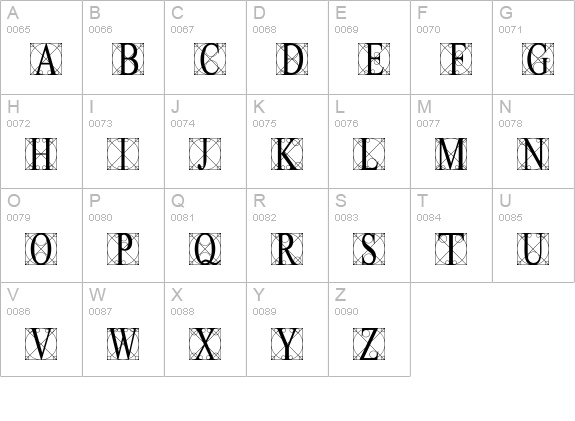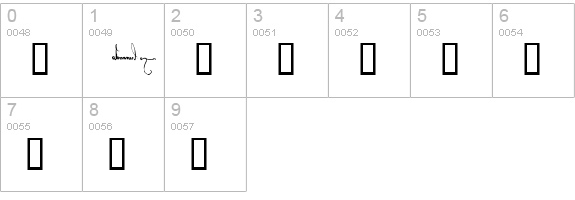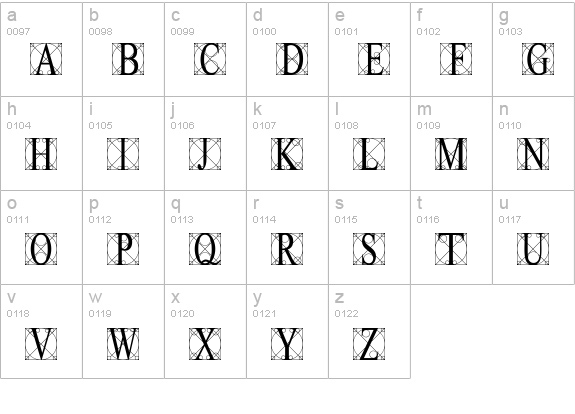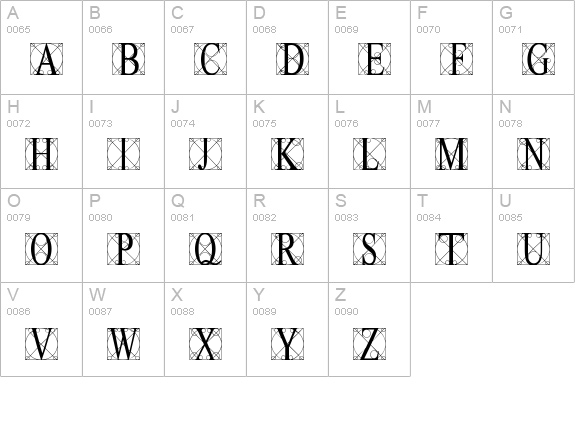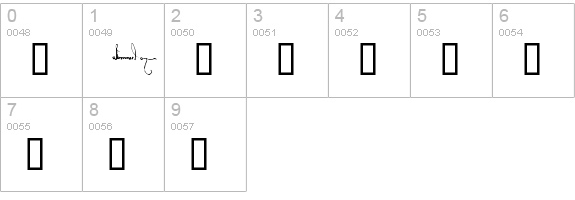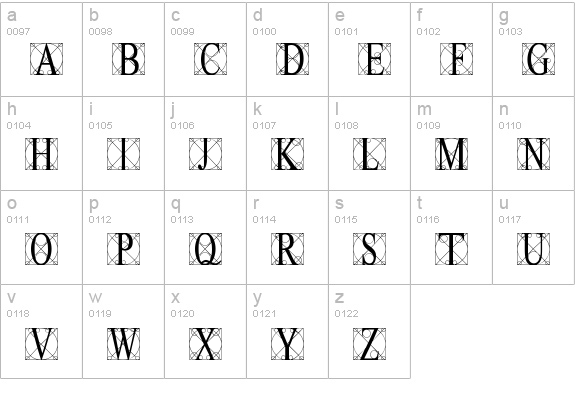
Leonardo Font Details
Introducing Leonardo Font, a stunning typeface that exudes elegance and sophistication. Designed with meticulous attention to detail, Leonardo combines classic elements with a modern twist, making it perfect for a variety of projects. This versatile font features clean lines and graceful curves, creating a harmonious balance that is both pleasing to the eye and easy to read. With its timeless appeal, Leonardo is ideal for branding, logo design, editorial layouts, and much more. What sets Leonardo Font apart is not only its exceptional design but also its accessibility. It is freely available to download at FontsMarket.com, allowing designers, creatives, and enthusiasts alike to incorporate this remarkable typeface into their work effortlessly. Whether you are creating a logo for a high-end boutique, designing a magazine spread, or even crafting a wedding invitation, Leonardo Font will elevate your project to new heights. Its versatility and elegance will add a touch of sophistication and professionalism, ensuring that your designs stand out from the crowd. Embrace the beauty and grace of Leonardo Font and unlock endless creative possibilities. Download this extraordinary typeface for free at FontsMarket.com and let your imagination soar.